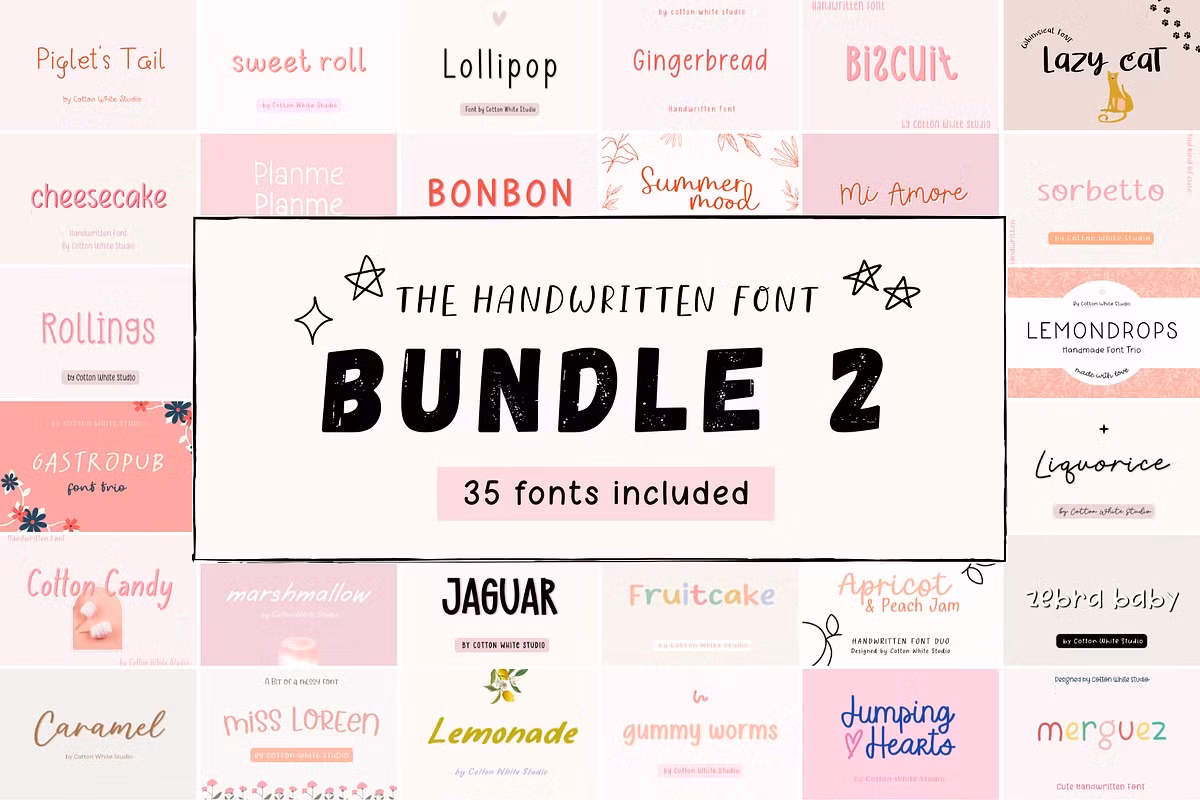
Handwriting Bundle 2 Font Free Download
Authentic, expressive, and full of creative charm, Handwriting Bundle 2 Font Free Download offers a curated collection of handwritten typefaces perfect for personal projects and stylish branding. Whether you're designing logos, quotes, invitations, social media content, or journaling graphics, this bundle gives you a variety of handwritten styles to explore.
From casual pen strokes to elegant modern scripts, each font in the bundle captures the uniqueness of natural handwriting. The collection is designed for versatility, allowing you to mix and match styles to create custom combinations that reflect your personal or brand voice.